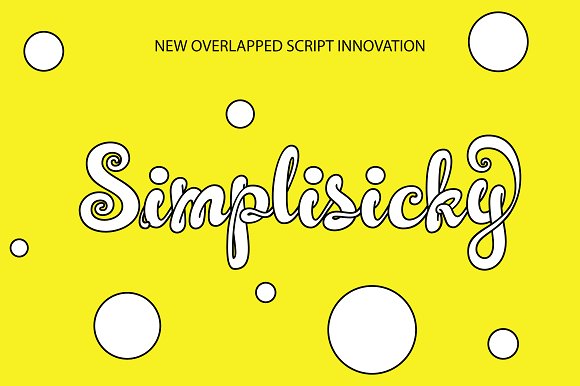
Unleash the Irresistible Allure of Simplisicky Font: Your Gateway to Breathtaking Cookies Designs
In a world where presentation captivates and flavors tantalize, Simplisicky font emerges as the perfect companion for your cookie creations, transforming them into masterpieces that speak volumes. This exquisite script font, meticulously crafted by the visionary designer Darwinoo, is not just a collection of letters; it's an artistic expression that elevates your cookies to a delectable art form.
Indulge in the Sensory Delight of Simplisicky:
- A Symphony of Simplicity: Simplisicky's minimalist design oozes sophistication, allowing the intricate details of your cookies to shine through. Its clean lines and elegant curves create a visual harmony that captivates the eye, making each cookie an irresistible treat.
- A Touch of Whimsy: Simplisicky's graceful swashes and playful flourishes add a touch of whimsy and charm to your cookies, evoking a sense of joy and delight. It's the perfect font to add a personal touch to your creations, making them truly unique.
- A Taste of Nostalgia: Simplisicky's timeless aesthetic evokes a sense of nostalgia, reminiscent of handwritten letters and vintage recipes. It brings a touch of warmth and familiarity to your cookies, creating a sense of connection with the past.
Unlock Your Creative Potential with Simplisicky:
- Endless Design Possibilities: Simplisicky's versatility knows no bounds. Its delicate strokes and flowing curves lend themselves beautifully to a wide range of cookie designs, from classic piped messages to intricate artistic creations. Unleash your creativity and let Simplisicky be your canvas.
- The Perfect Pairing: Simplisicky harmonizes effortlessly with various cookie decorating techniques. Whether you prefer the precision of royal icing or the rustic charm of buttercream, Simplisicky enhances the beauty of your designs, creating a cohesive and visually stunning masterpiece.
- Make a Statement: Simplisicky transforms your cookies into edible works of art, perfect for special occasions or as thoughtful gifts. Its captivating presence commands attention, making your cookies the centerpiece of any gathering.
Experience the Simplisicky Advantage:
- Effortless Customization: Simplisicky's user-friendly design makes it a breeze to customize. With a few simple clicks, you can resize, rotate, and color the font to match your unique style and vision. Create personalized messages, whimsical quotes, or intricate patterns that reflect your creativity.